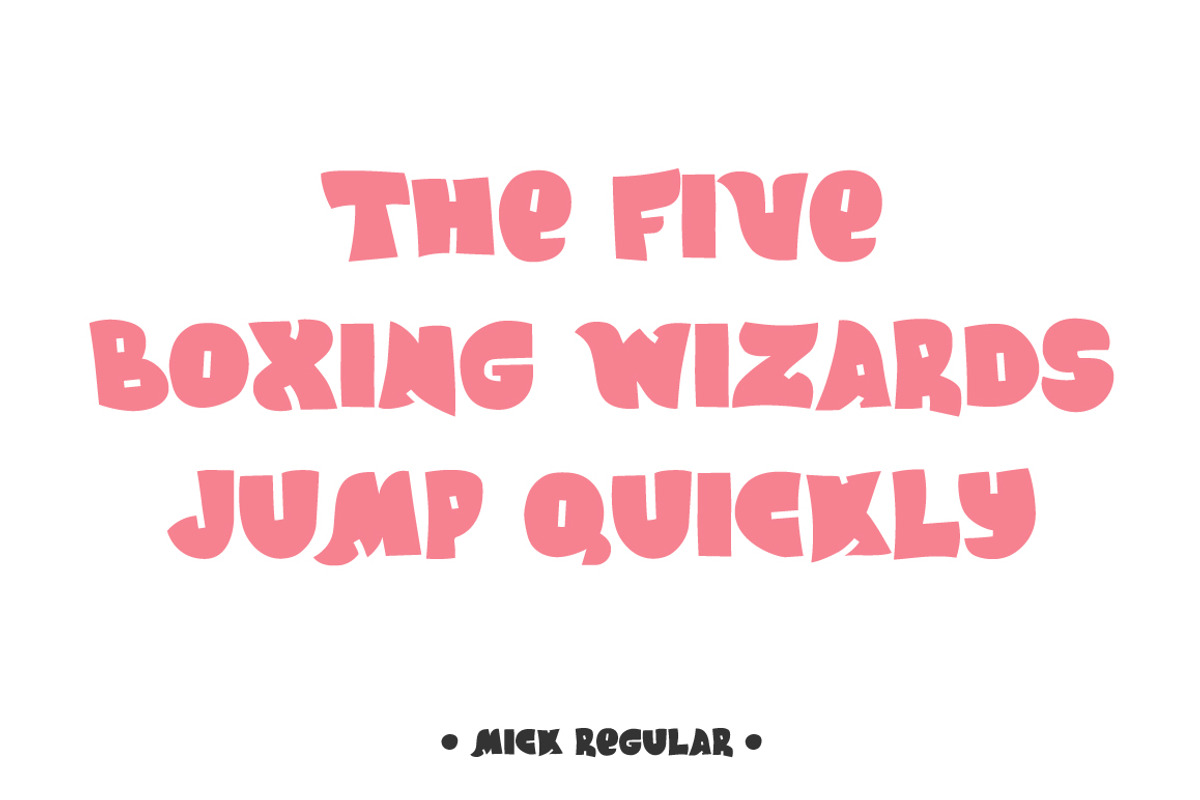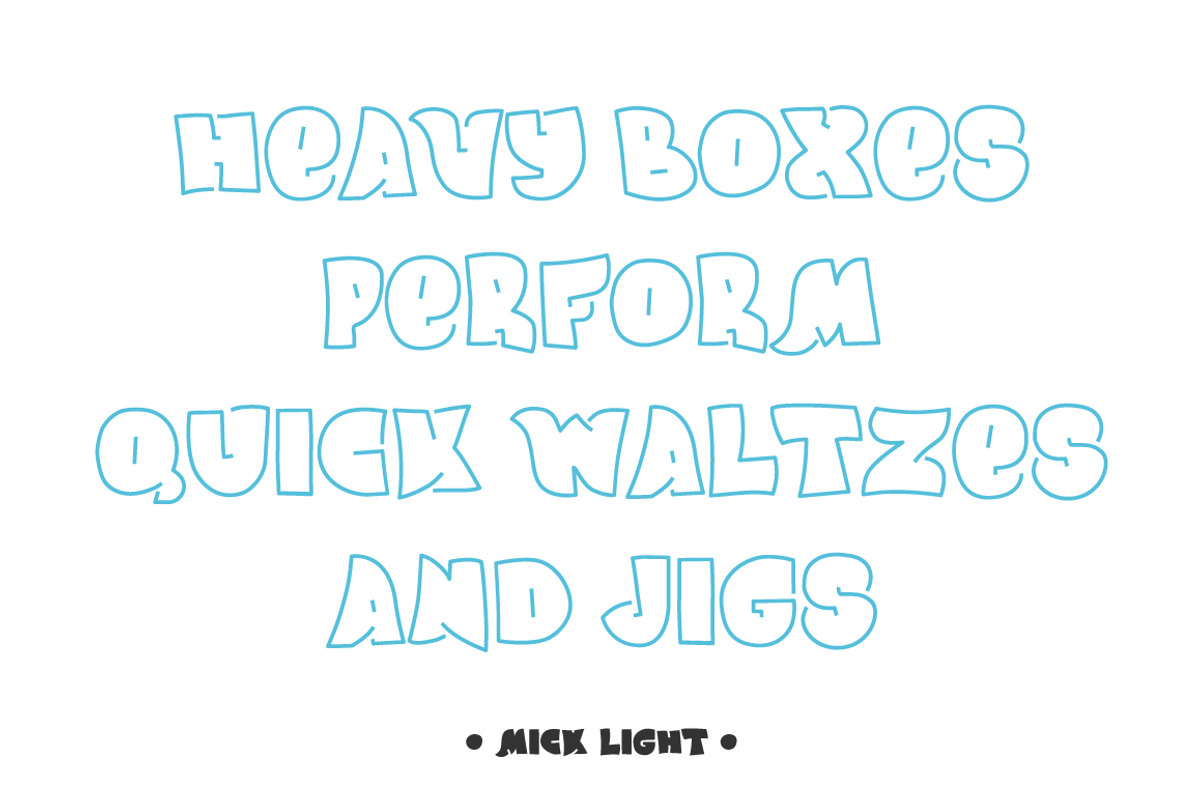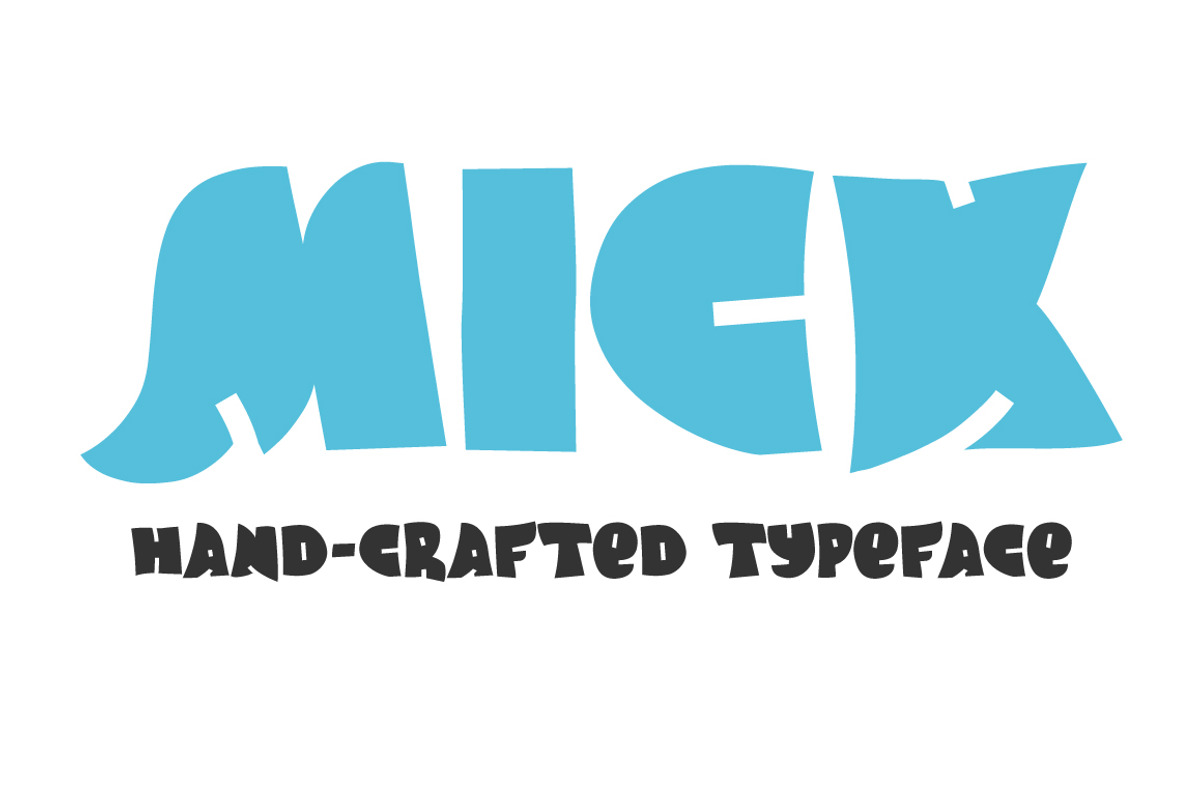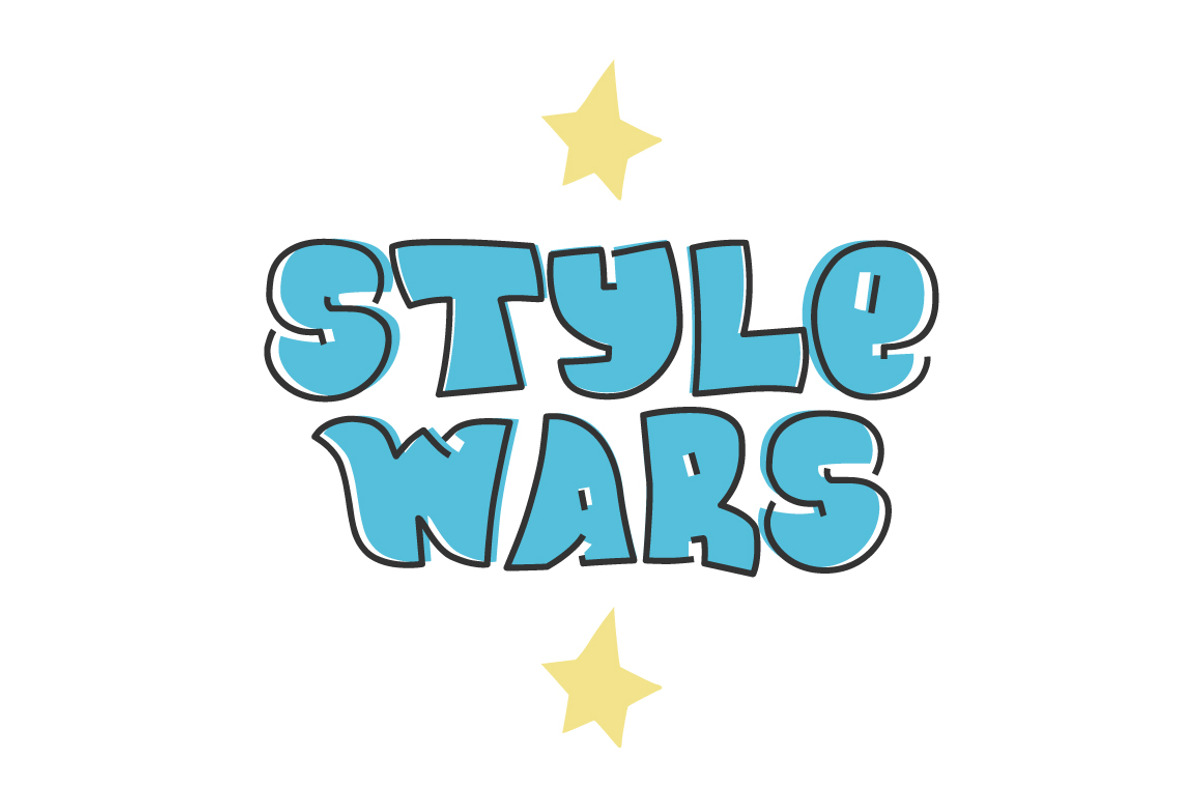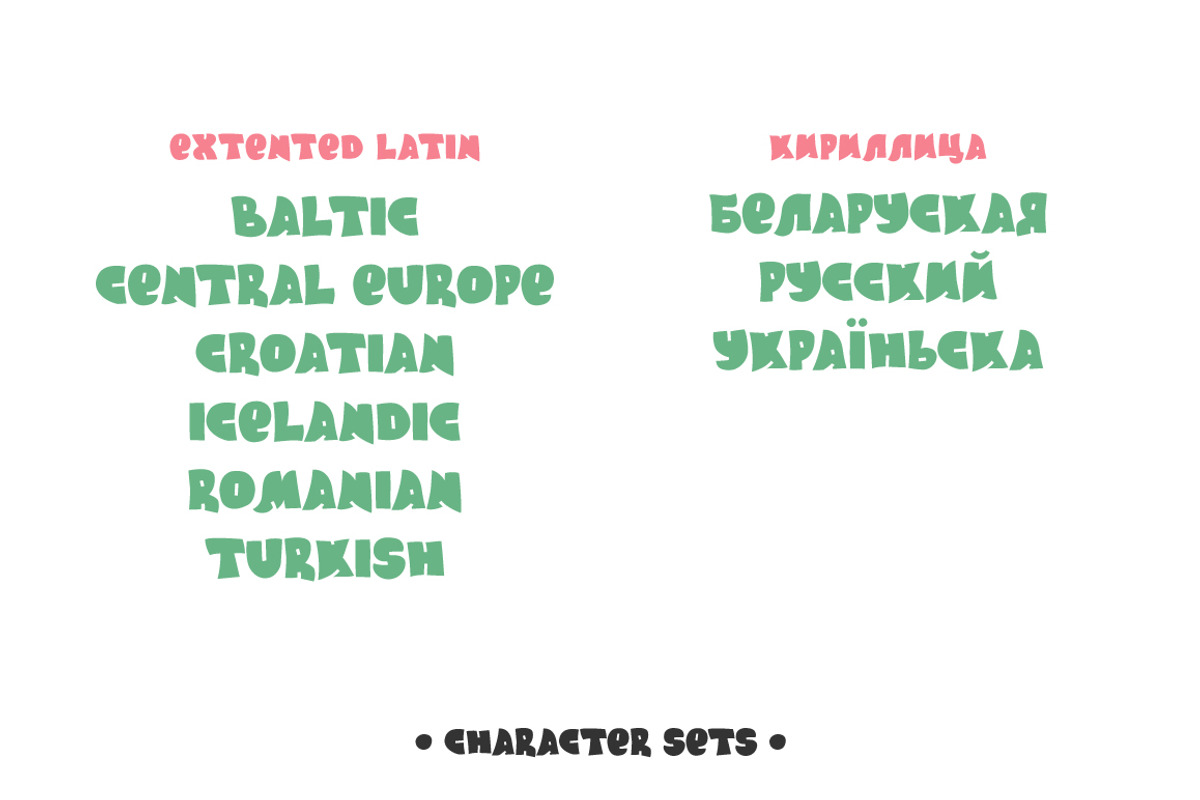
Mick font
Mick is a hand-drawn typeface inspired by graffiti works of 1980s. The family contains Regular and Light styles.
Supported languages Baltic, Central Europe, Croatian, Icelandic, Romanian, Turkish Беларуская, Русский, Україньска
- The family contains Regular and Light styles.
- Mick Light
- Mick Regular